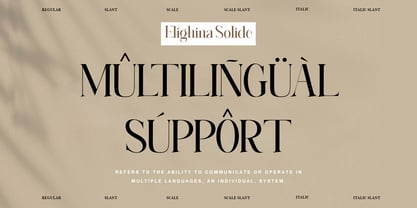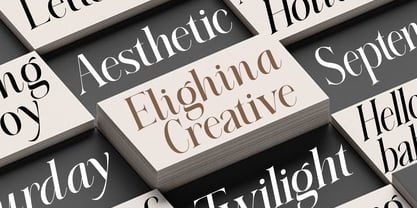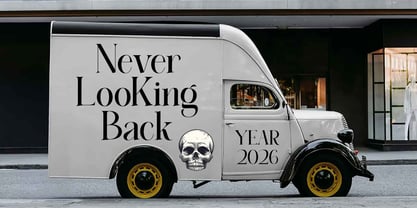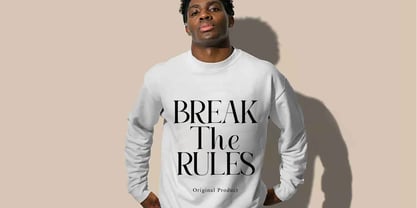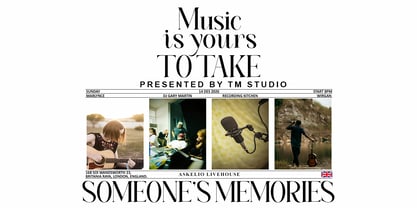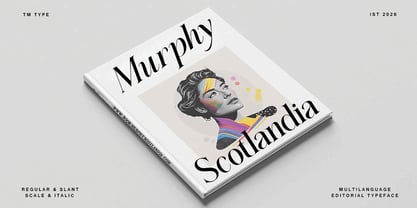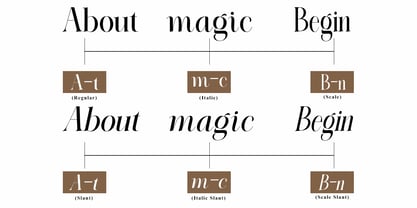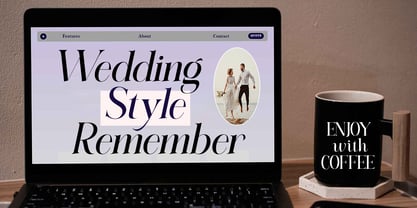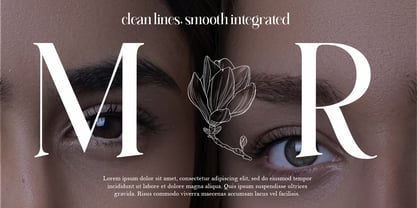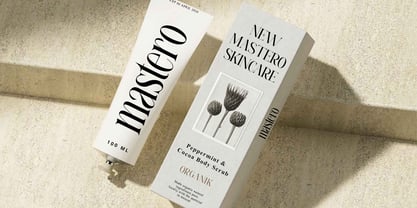
Elighina Solide
The Elighina Solide Font Family was designed by Teuku Bustami and published by TM Type. Elighina Solide contains 6 styles and family package options. More about this family
Elighina Solide is an elegant, display, serif typeface inspired by 20th century calligraphy and transitional typefaces. The Roman style is paired with Regular, Italic, Slant, Scale, Scale Slant, Italic Slant. Elighina Solide has a quiet big x-height value, modern proportions, sharp terminals and an extreme stroke contrast with a diagonal stress. The letterforms are elegant and have beautiful, polished details. Elighina Solide is a great choice for fashion projects, headlines, titles, posters, packagings, covers and logotypes but can be also successfully used in some occasional texts.